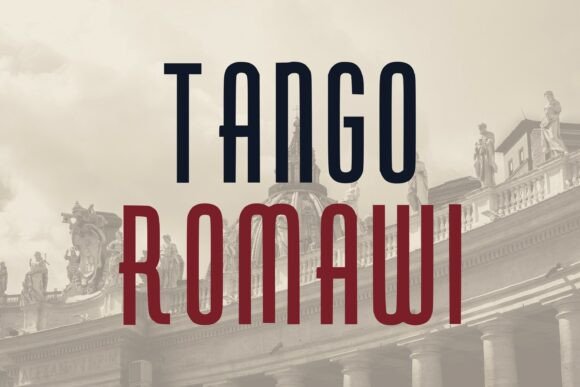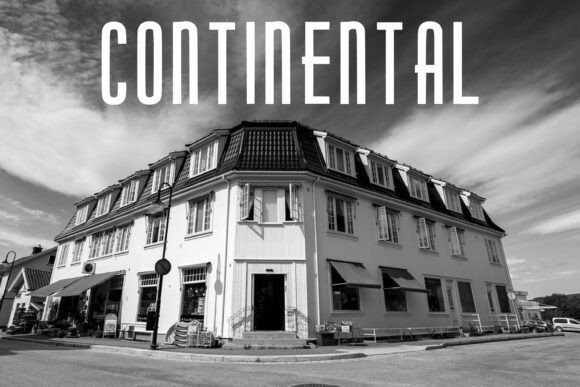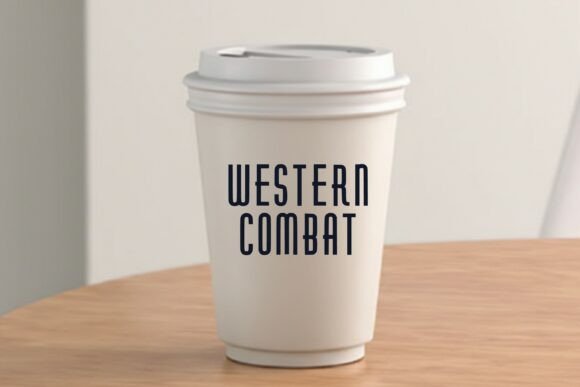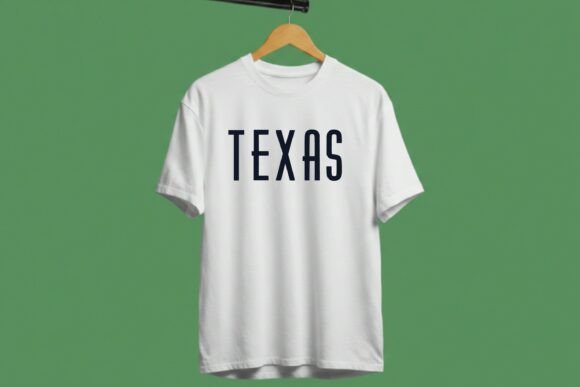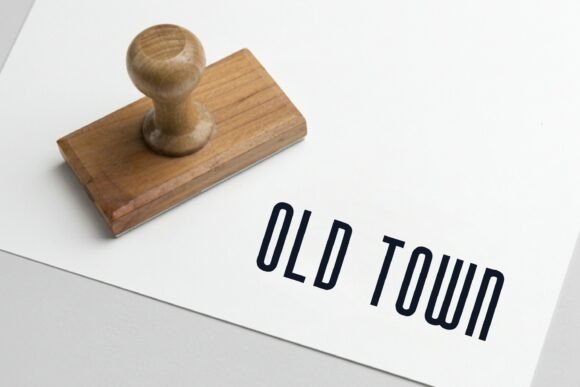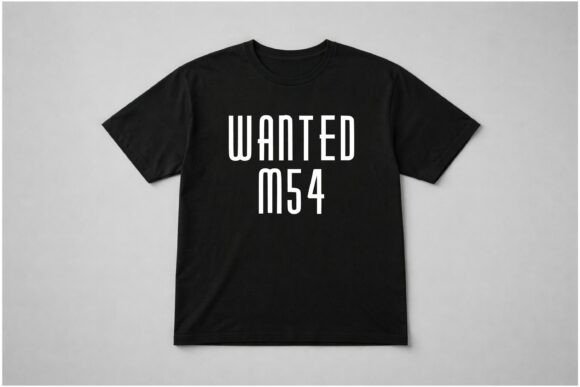
Introduction to Nashville Font
Nashville is a bold and stylish western display font inspired by vintage Americana and classic retro signage.
Featuring tall, condensed letterforms with sharp edges and a strong presence, this typeface is perfect for creating eye-catching designs with a nostalgic western vibe Ideal for logos, posters, branding, packaging, apparel, signage, and editorial designs, Nashville brings a timeless rustic charm combined with modern elegance.